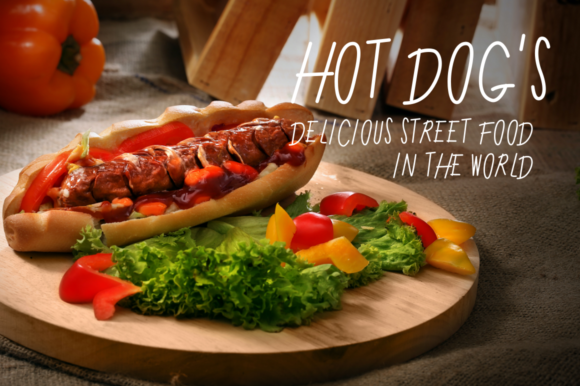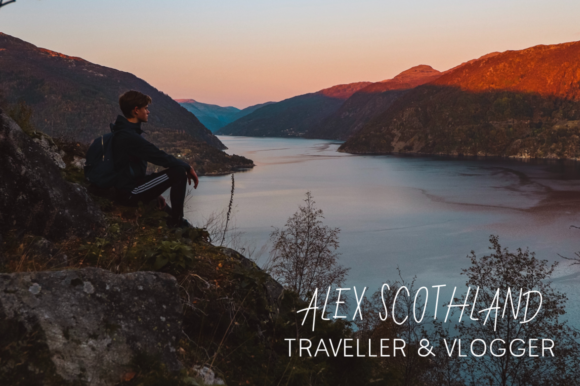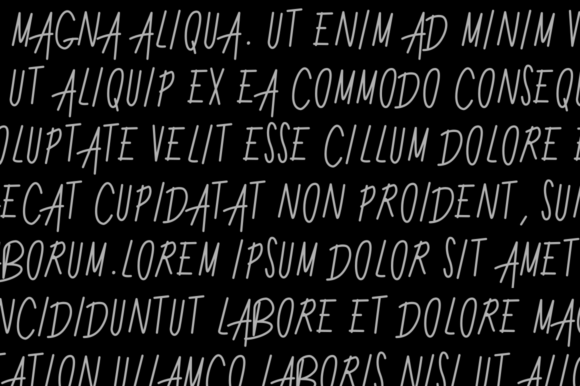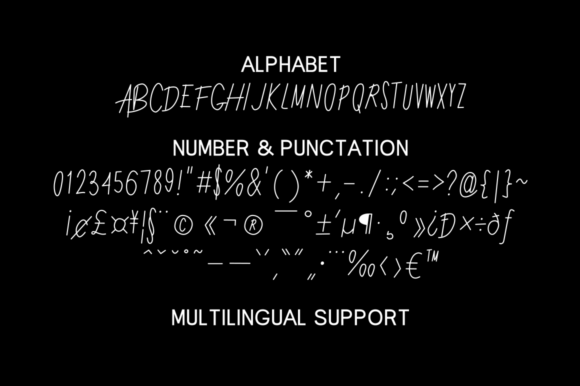
Aish Font: The Authentic and Simple Handwritten Font for Your Creative Projects
In the world of typography, a font can make or break a design. It’s the foundation upon which your creative project is built, and it can elevate or detract from the overall aesthetic. If you’re a designer, craftsperson, or simply someone who appreciates beautiful typography, you’re likely always on the lookout for fonts that can add a touch of elegance and sophistication to your work. That’s where Aish Font comes in – an authentic and simple handwritten font that’s sure to become a valuable asset in your font library.
The Beauty of Aish Font
Aish Font is a stunning example of a handwritten font done right. Its authentic and simple design makes it versatile and easy to use, no matter the topic or theme of your project. The font’s clean lines and elegant curves give it a timeless quality that will never go out of style. Whether you’re working on a branding project, a craft tutorial, or simply a personal blog, Aish Font is the perfect choice for adding a touch of personality and whimsy to your text.
Why Aish Font Stands Out
So, what sets Aish Font apart from other fonts in its class? Here are just a few reasons why this font is sure to become a favorite in your collection:
- Authentic and Simple Design: Aish Font’s design is unpretentious and genuine, making it perfect for projects where you want to convey a sense of approachability and friendliness.
- Versatile: Whether you’re working on a formal or informal project, Aish Font is versatile enough to adapt to any theme or topic.
- Elegant and Sophisticated: Despite its simple design, Aish Font has an undeniable air of elegance and sophistication that will elevate your project and make it stand out.
- Easy to Read: The font’s clean lines and clear typography make it easy to read, even in smaller sizes.
Aish Font is a perfect fit for designers and crafters who are looking for a font that can add a personal touch to their work. Whether you’re creating:
- Branding Materials: Use Aish Font to create custom logos, business cards, and letterheads that reflect your brand’s personality.
- Craft Tutorials: Add a touch of whimsy and personality to your craft tutorials with Aish Font’s elegant and simple design.
- Blog Posts: Use Aish Font to add a personal touch to your blog posts and make them more engaging and readable.
- Social Media Graphics: Create eye-catching social media graphics with Aish Font that will help your content stand out.
- Experiment with Different Sizes: Aish Font looks great in a variety of sizes, from small and delicate to large and bold.
- Play with Colors: Try pairing Aish Font with different colors and textures to add depth and interest to your design.
- Mix and Match with Other Fonts: Aish Font pairs well with a variety of other fonts, so don’t be afraid to experiment with different combinations.
In conclusion, Aish Font is a beautiful and versatile handwritten font that’s perfect for designers, crafters, and anyone who appreciates beautiful typography. Its authentic and simple design makes it easy to use and adaptable to any theme or topic. With its elegant and sophisticated look, Aish Font is sure to become a valuable asset in your font library. So why wait? Download Aish Font today and start elevating your creative projects with its timeless beauty!